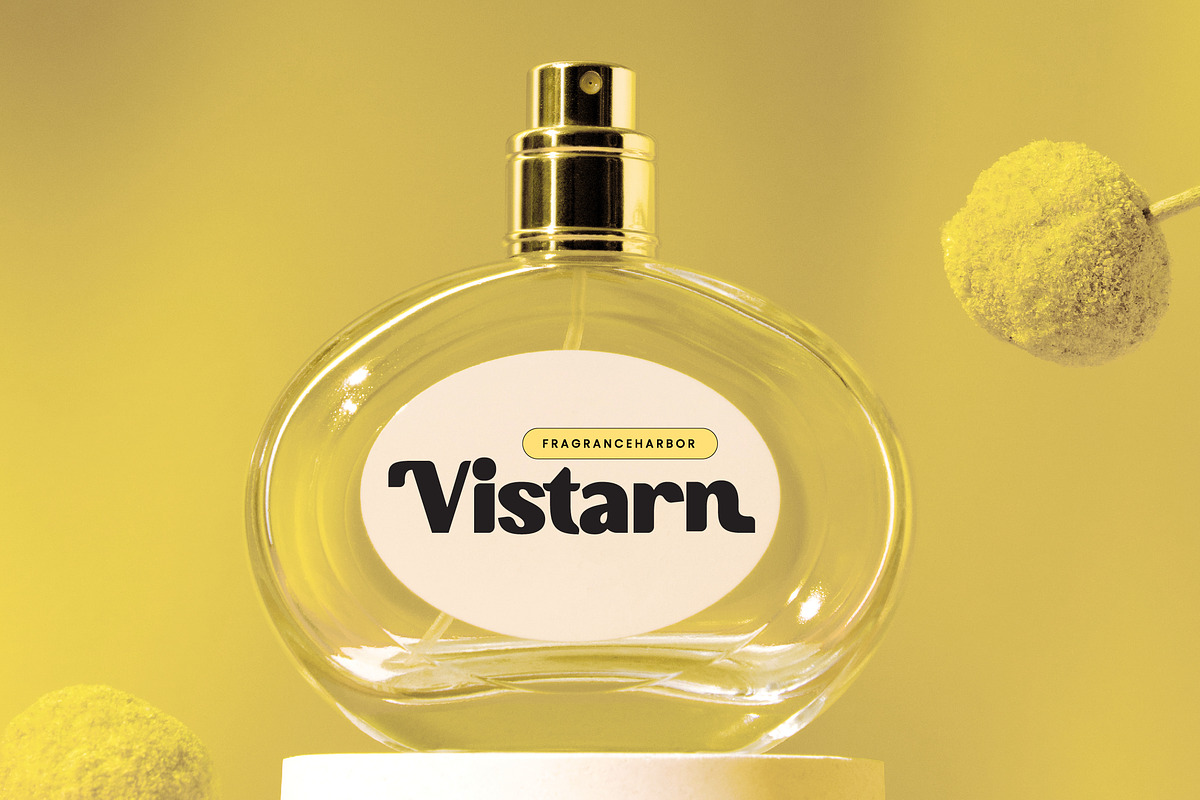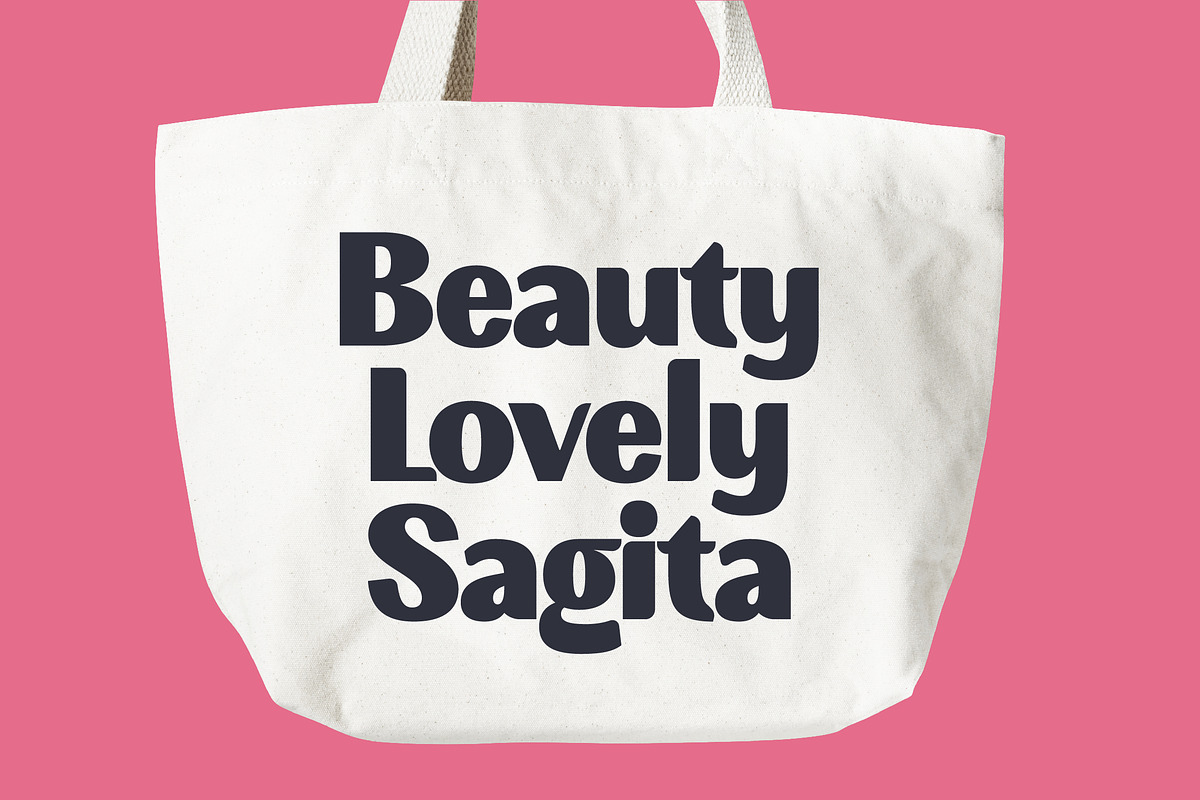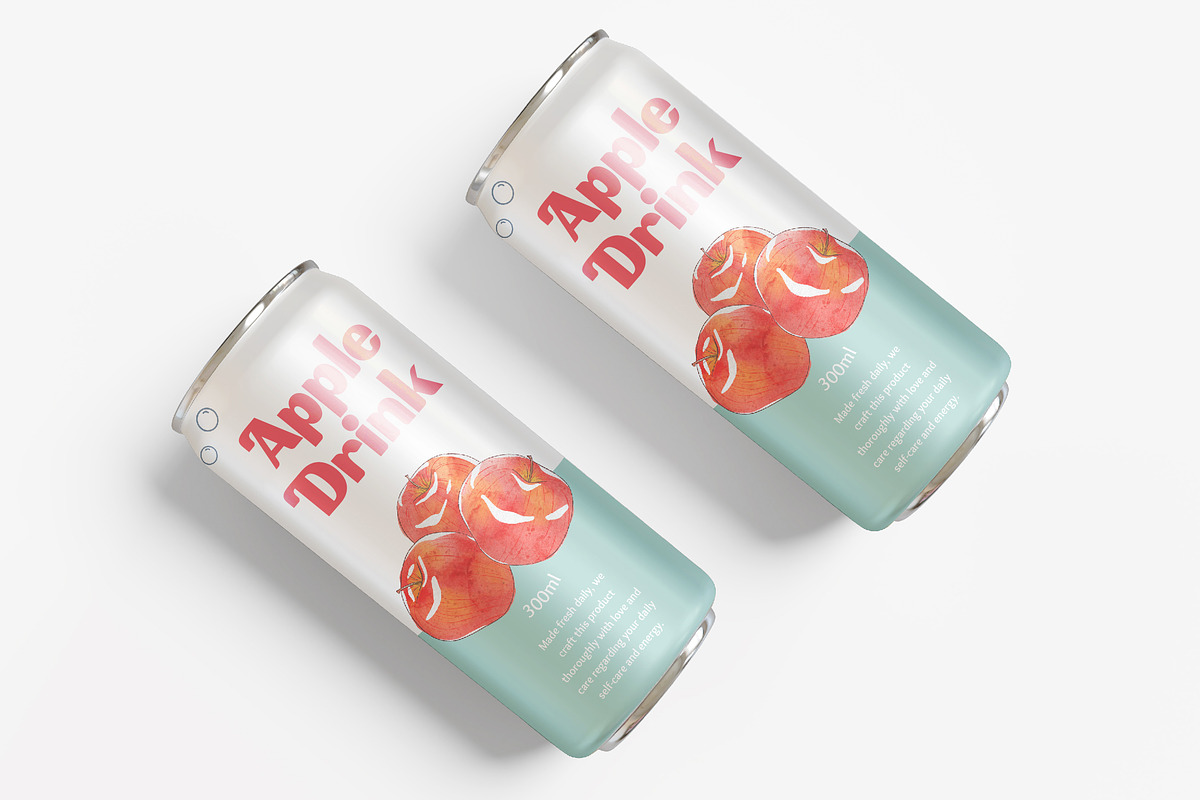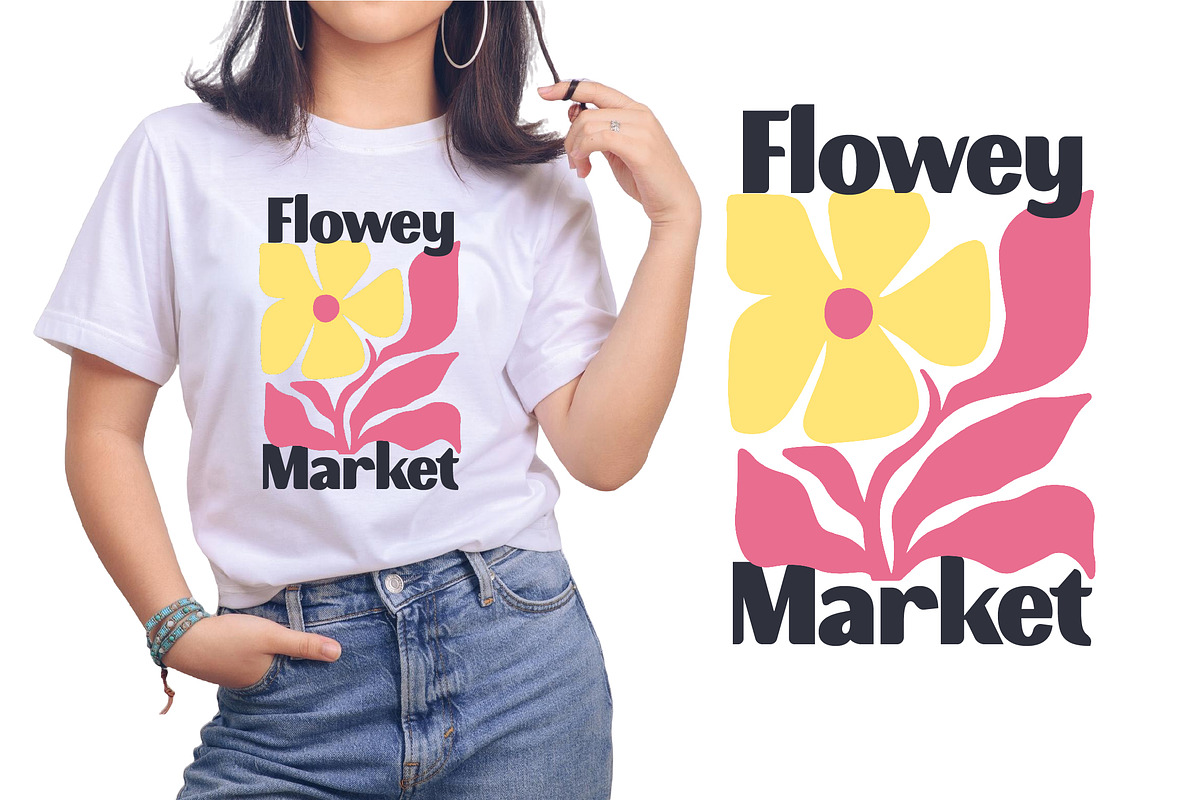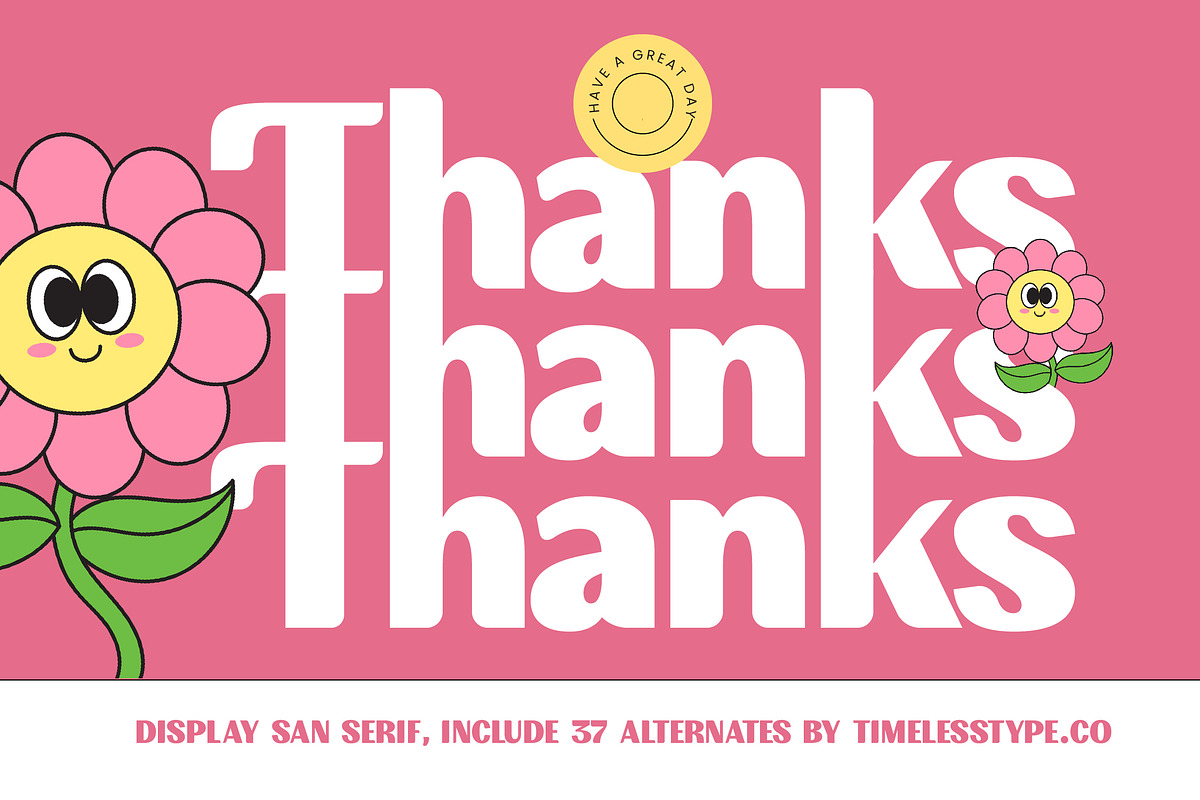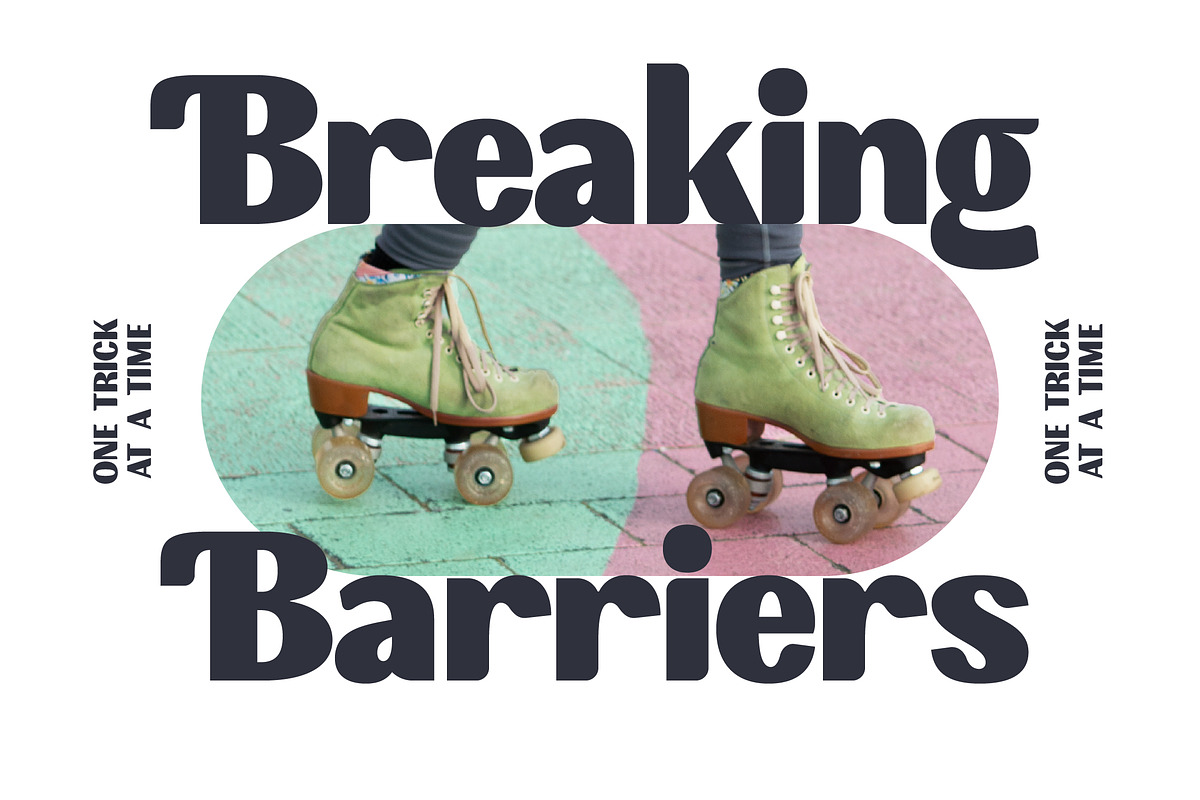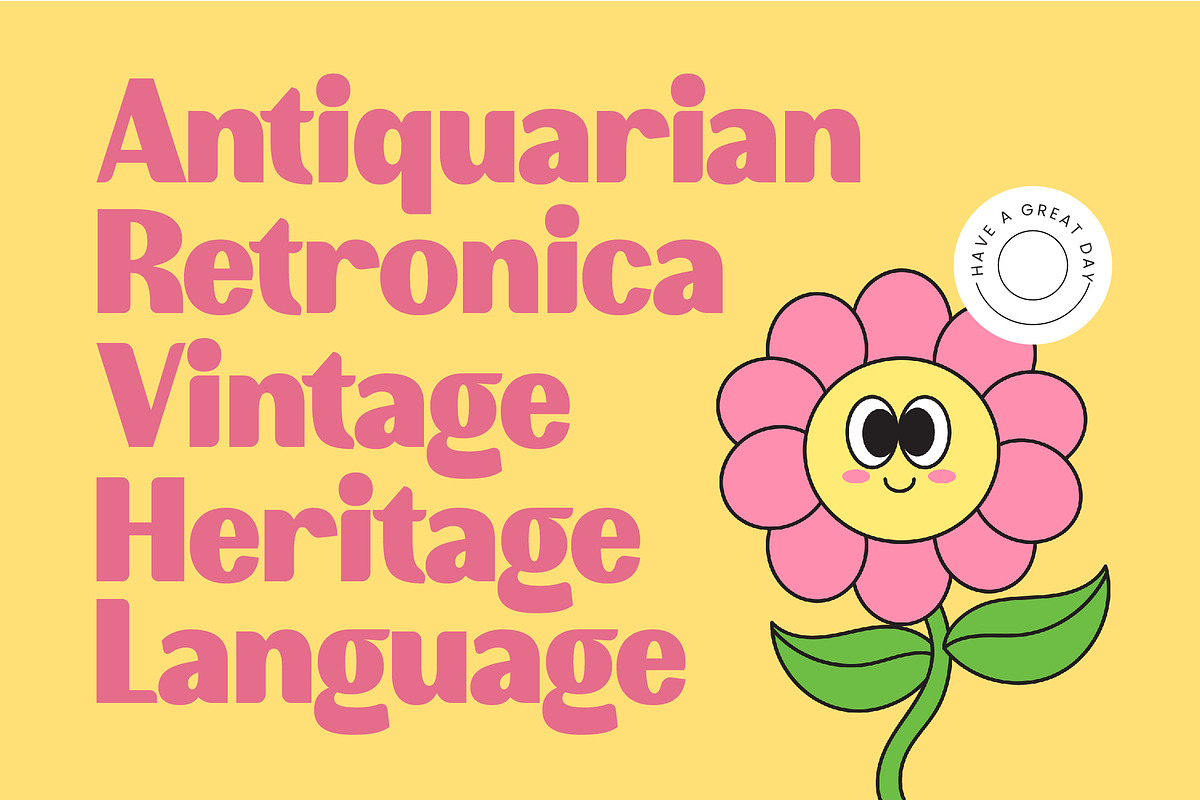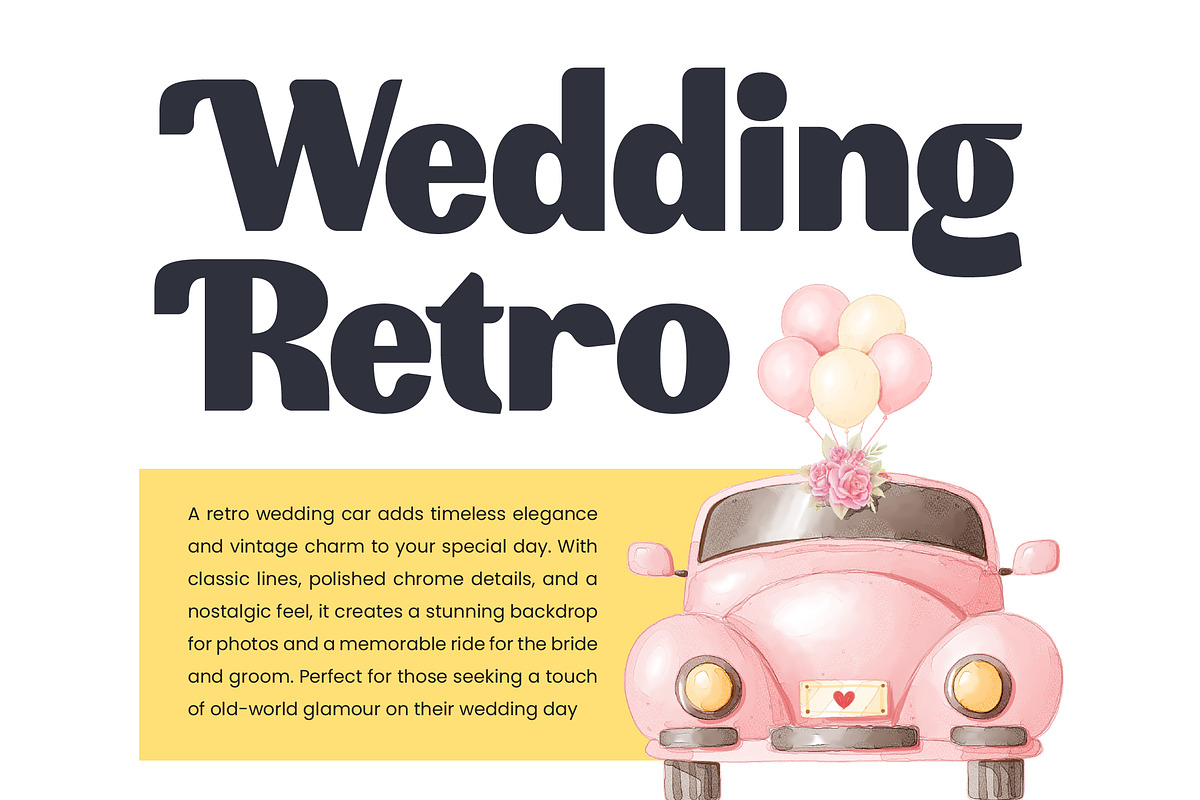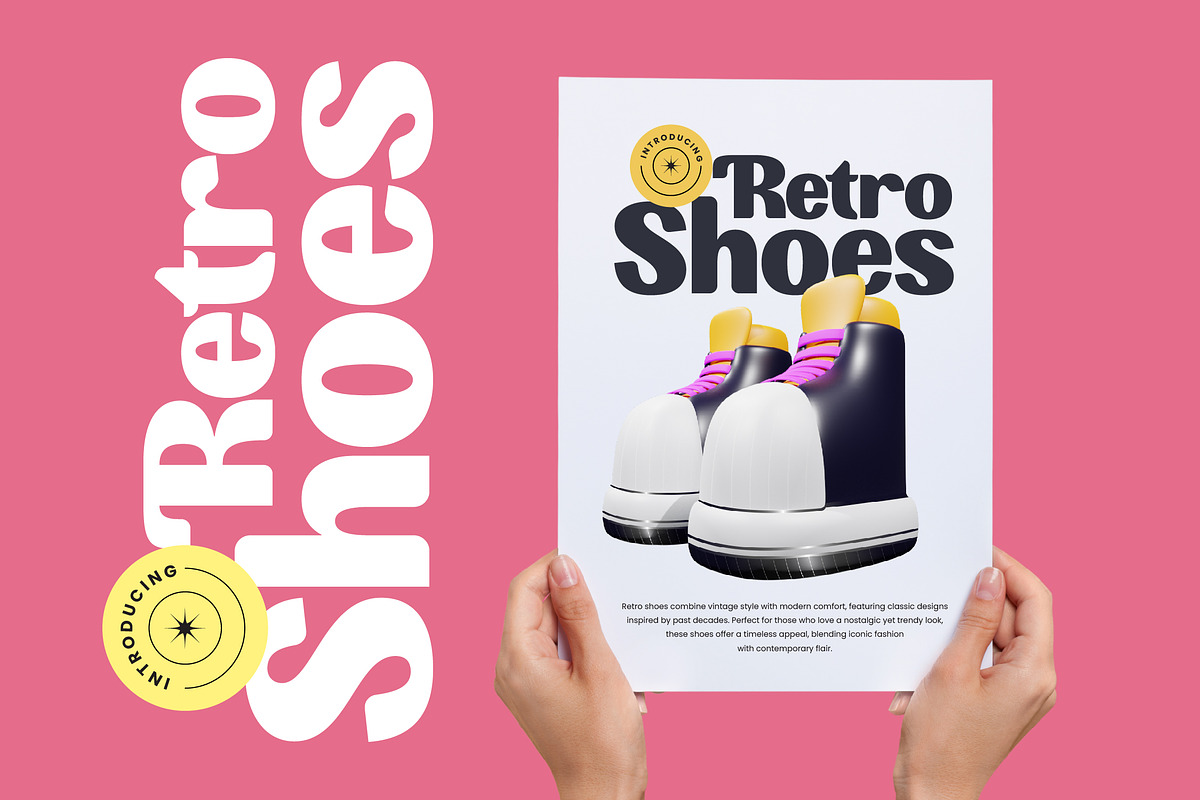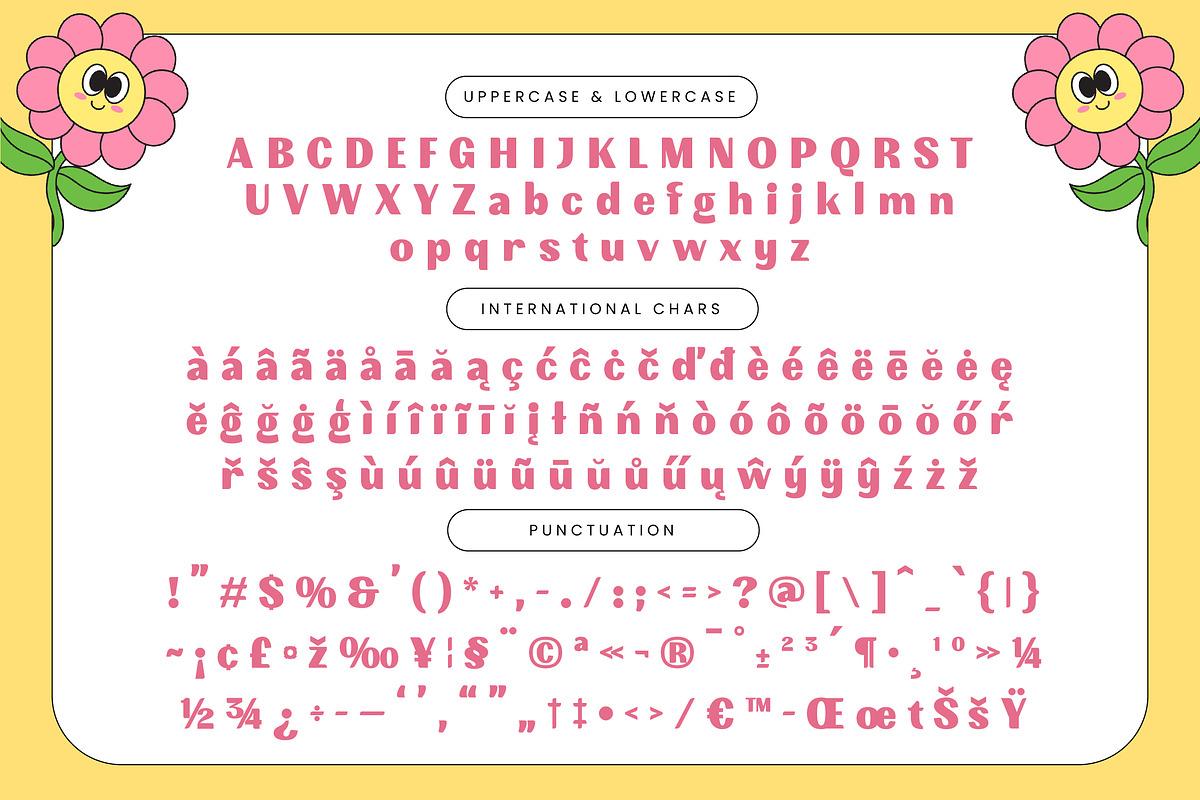
Lyngo Sofun Retro Display Font
Introducing Lyngo Sofun, a vibrant and chunky display font designed to infuse your creative projects with an unstoppable sense of joy and retro-cool energy. It is the ultimate choice for designers looking to make a bold, friendly statement that captures attention instantly through its unique and rounded letterforms.
Inspired by the whimsical aesthetics of late 90s and early 2000s pop culture, this typeface draws its soul from playful sticker art and psychedelic floral motifs. The organic, heavy forms evoke a sense of nostalgia while maintaining a crisp, contemporary edge that feels perfectly at home in today's digital landscape and social media environments.
This typeface delivers a massive branding impact and functions as a high-energy editorial font for projects that refuse to be ignored. By blending the elegance of luxury typography with a fun-loving spirit, it offers the visual weight of a high-contrast serif while maintaining the accessibility of a modern serif display style.
As the modern serif trend continues to lean toward expressive and thick silhouettes, this font stays ahead of the curve by offering designers more than just basic glyphs. It perfectly aligns with the current demand for editorial display fonts that prioritize personality, providing the essential character-driven typography needed for standout marketing campaigns.
Whether you are working on a vibrant logo design or a comprehensive branding identity, this font delivers maximum impact across print and digital media. It is exceptionally well-suited for editorial layouts, playful packaging, wedding stationery with a modern twist, and bold fashion lookbooks that require a touch of creative whimsy.
The package comes fully loaded with a comprehensive set of alternates and ligatures to give your typography a custom, hand-lettered feel. It also includes full support for multilingual projects and international characters, ensuring your message reaches a global audience without losing its unique swashes or decorative flair.